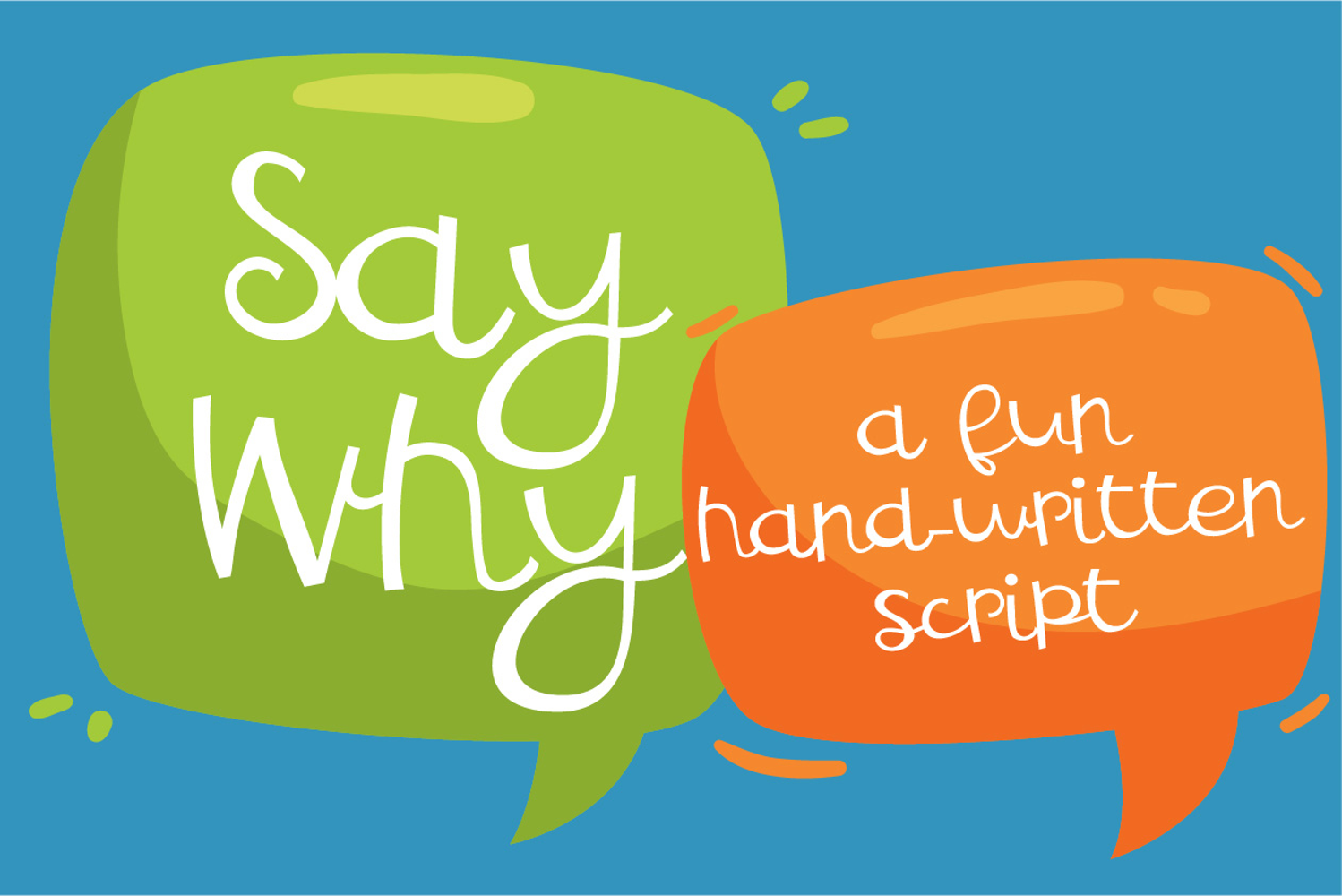
Say Why Fun Handwritten Script Font
Say Why is a playful handwritten script font with tall, quirky letters and lively curves, perfect for crafts, quotes, branding, invitations, and kids’ designs.